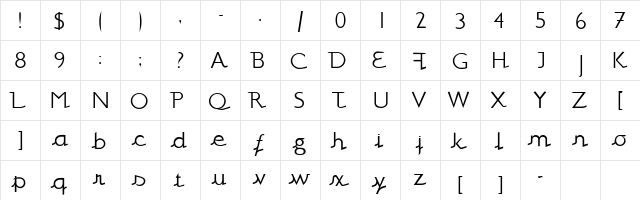
CanicopulusScript Regular Font Preview
CanicopulusScript Regular
Design Context for CanicopulusScript Typeface
CanicopulusScript flows with the natural rhythm of handwritten lettering, making it ideal for designs that call for warmth and personal expression.